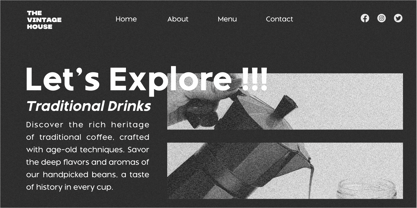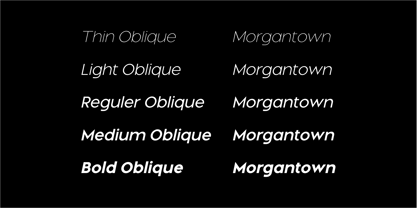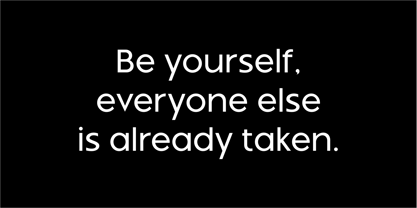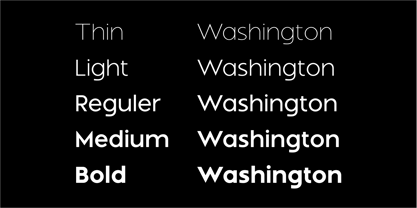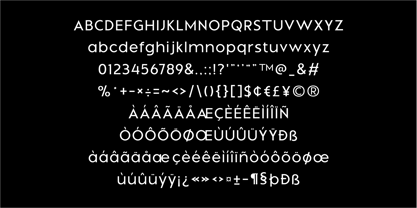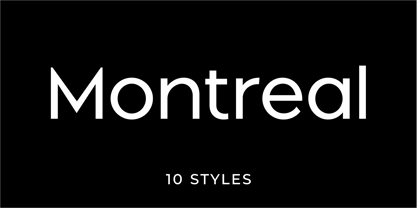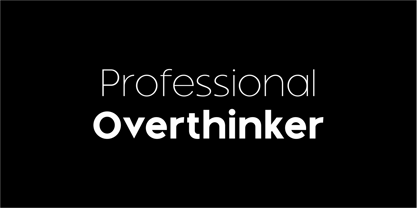
Montreal – Modern Geometric Sans Serif Font Family for Clean Branding
Montreal is a modern geometric sans serif font family designed to deliver clarity, precision, and contemporary elegance. Built with clean lines, sharp angles, and balanced proportions, Montreal offers a sleek minimalist aesthetic that works beautifully across a wide range of professional and creative design projects.
This geometric sans serif font emphasizes simplicity and structure, making it ideal for designers who want typography that feels modern, organized, and highly readable. The carefully constructed letterforms create a strong visual rhythm, ensuring that your designs appear polished and professional in both digital and print environments.
Montreal includes 10 carefully crafted styles, giving designers the flexibility to build strong typographic hierarchies. Each weight is designed to maintain the same geometric harmony while offering different levels of visual emphasis, from light and elegant text to bold and powerful headlines.
Whether you’re developing a corporate identity, technology branding, editorial layout, or website design, Montreal adapts effortlessly to different creative contexts. Its minimalist style allows it to complement modern layouts while maintaining a confident and distinctive presence.
Montreal performs exceptionally well in branding and visual identity systems. The geometric precision of the letterforms ensures consistency across logos, packaging, marketing materials, and digital interfaces, helping designers create cohesive and memorable brand experiences.
From posters and logos to websites and modern editorial design, Montreal delivers a clean and professional typographic style that enhances readability while maintaining a contemporary aesthetic.
With its versatile style range and modern geometric construction, Montreal is a reliable choice for designers seeking a font family that combines elegance, structure, and functionality.
Key Features
Modern Geometric Sans Serif
Clean geometric letterforms designed for modern and minimalist typography.
10 Font Styles
A complete family with multiple weights for flexible typographic hierarchy.
Minimalist Professional Style
Perfect for contemporary branding and corporate design projects.
High Readability
Balanced spacing and large x-height ensure clarity at various sizes.
Versatile Typography
Works beautifully for both display headlines and paragraph text.
Multilingual Support
Extended characters for international language support.
Why Choose Montreal?
Montreal is a versatile geometric sans serif font family designed to bring modern clarity and professional style to your design projects. With its clean structure, balanced proportions, and wide range of styles, it provides the flexibility needed to create strong, elegant, and contemporary typography.